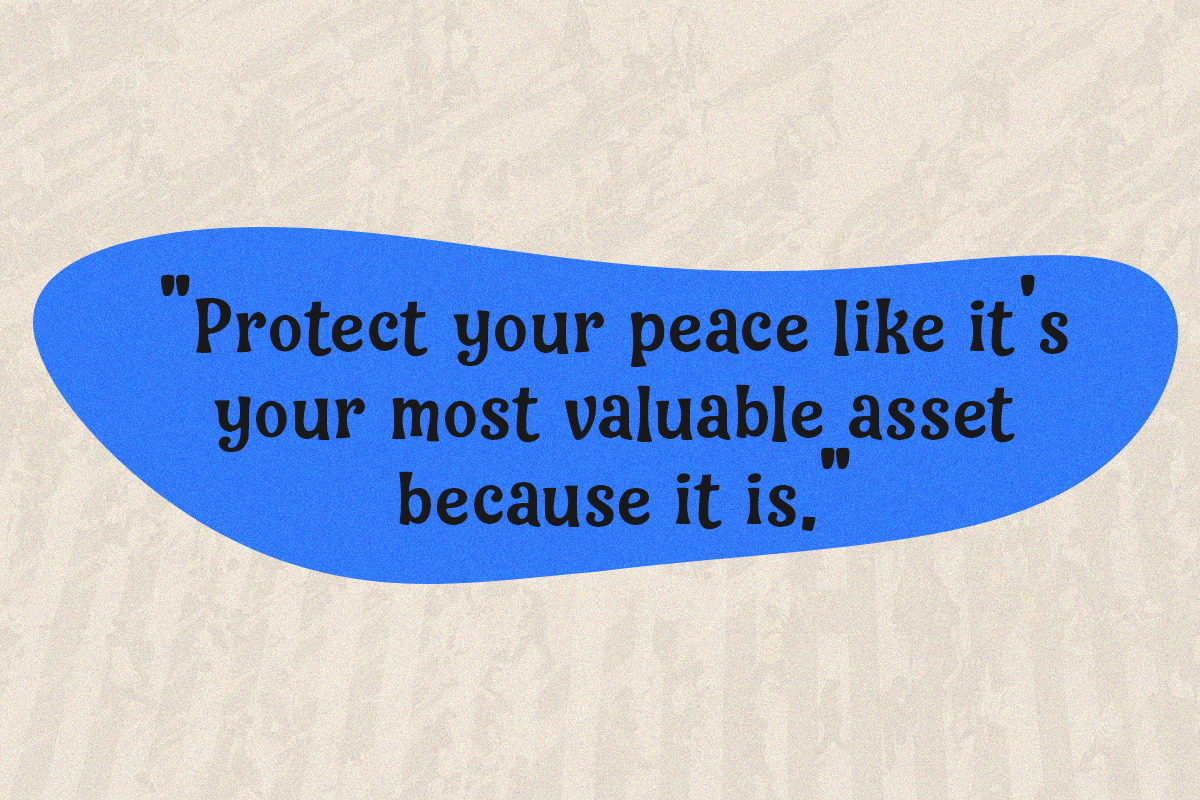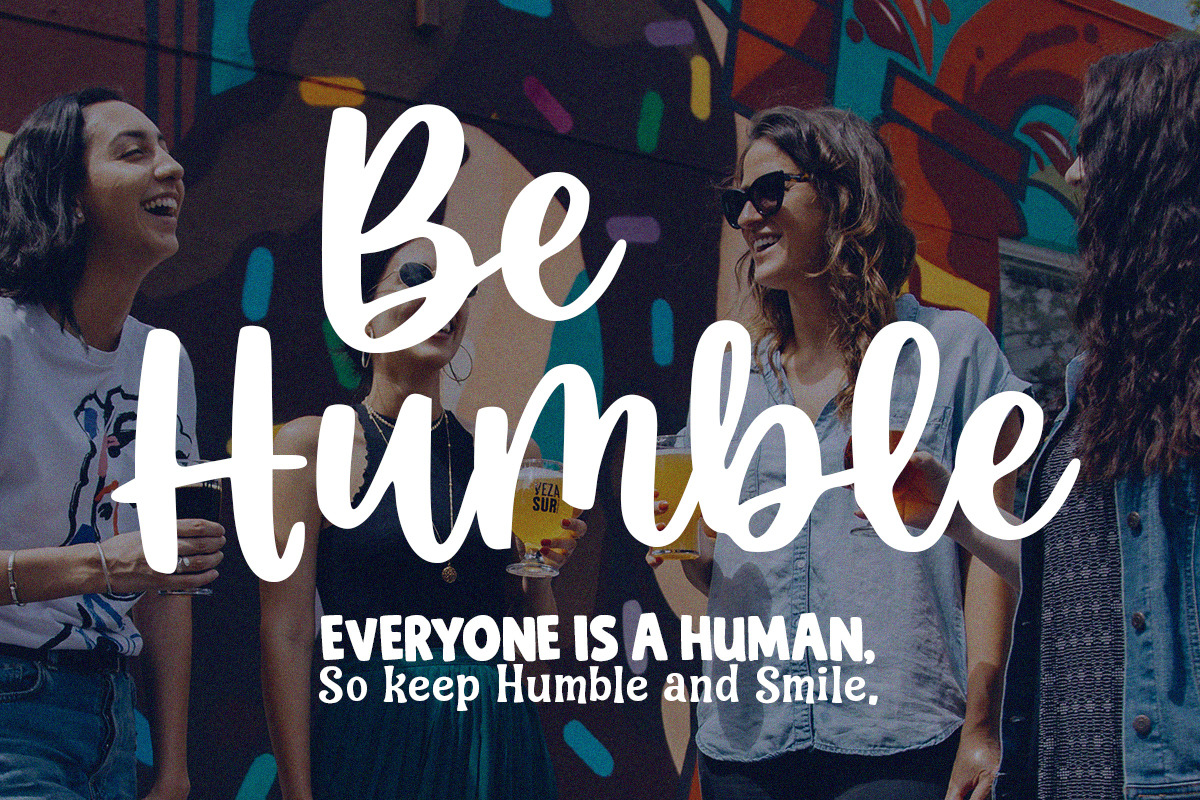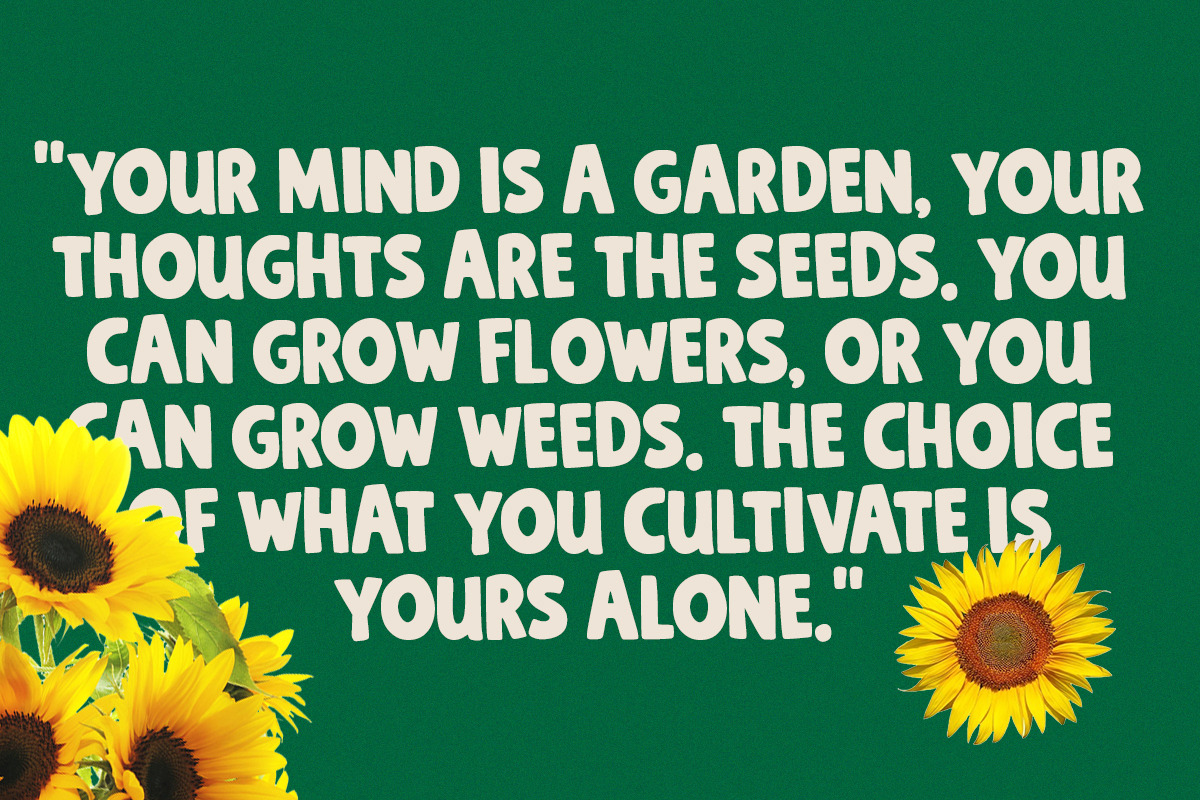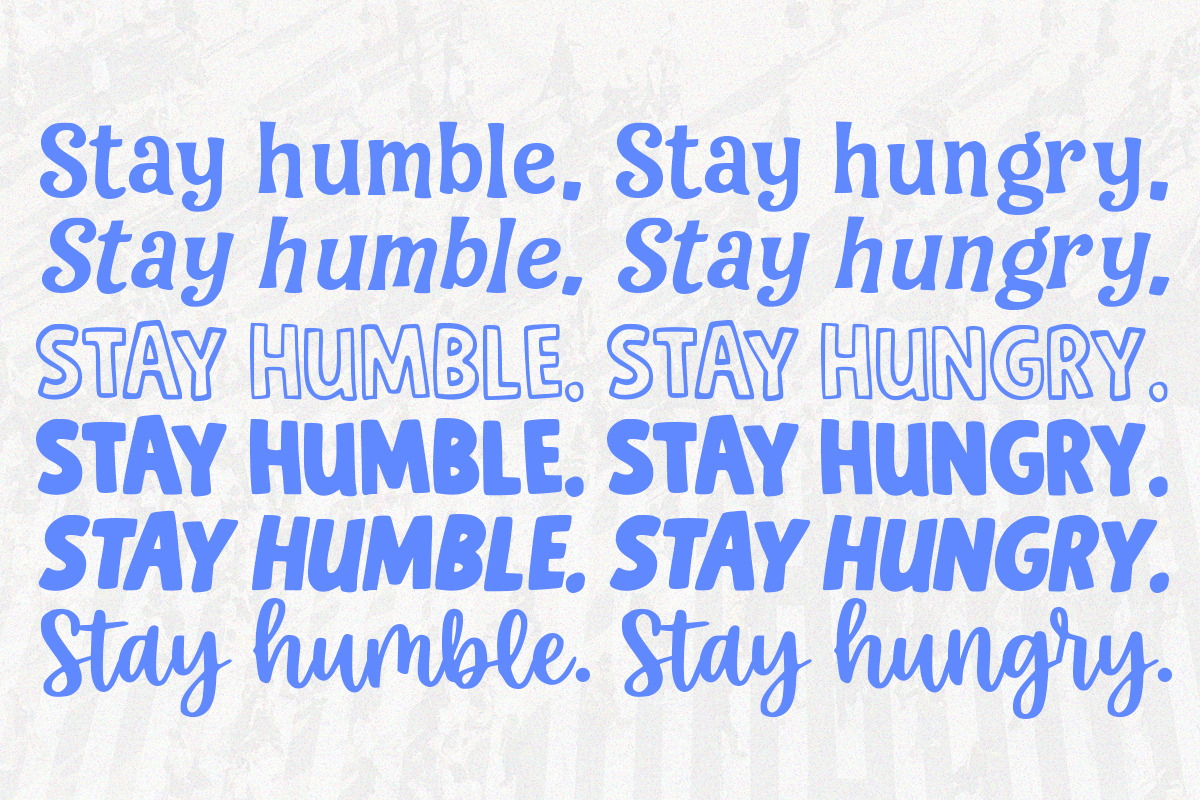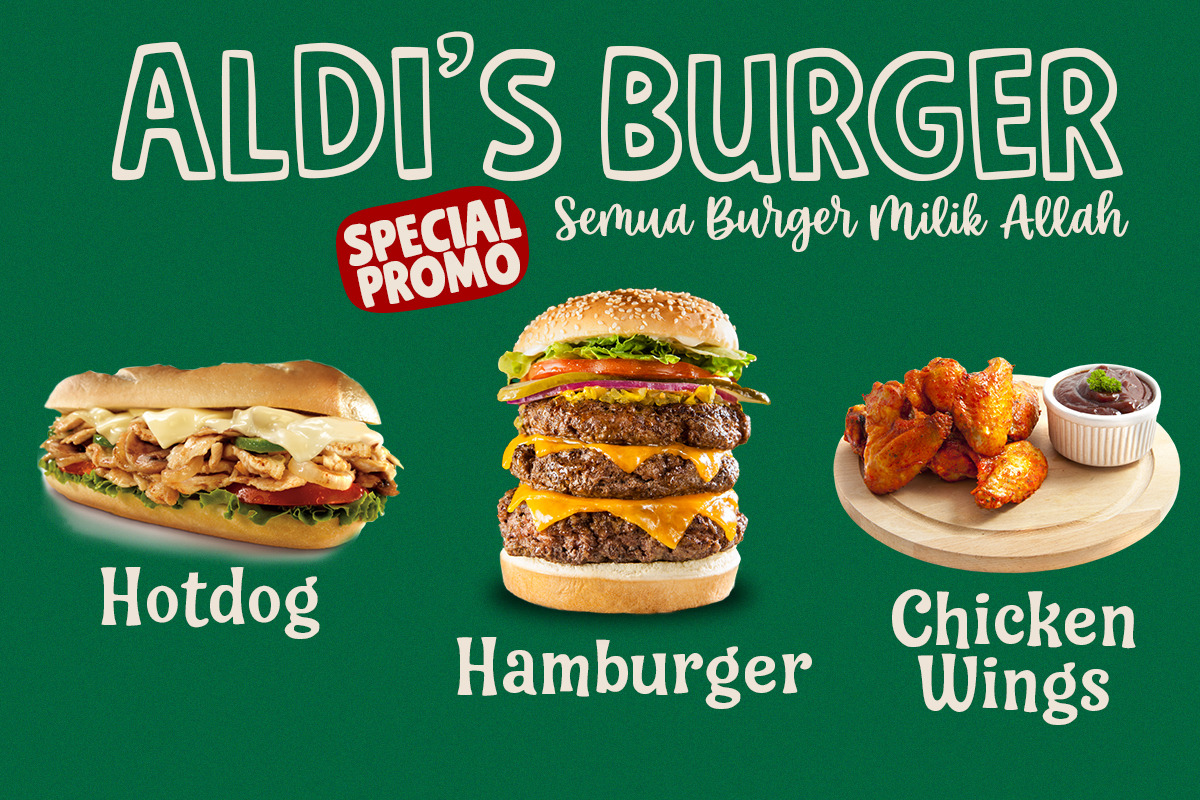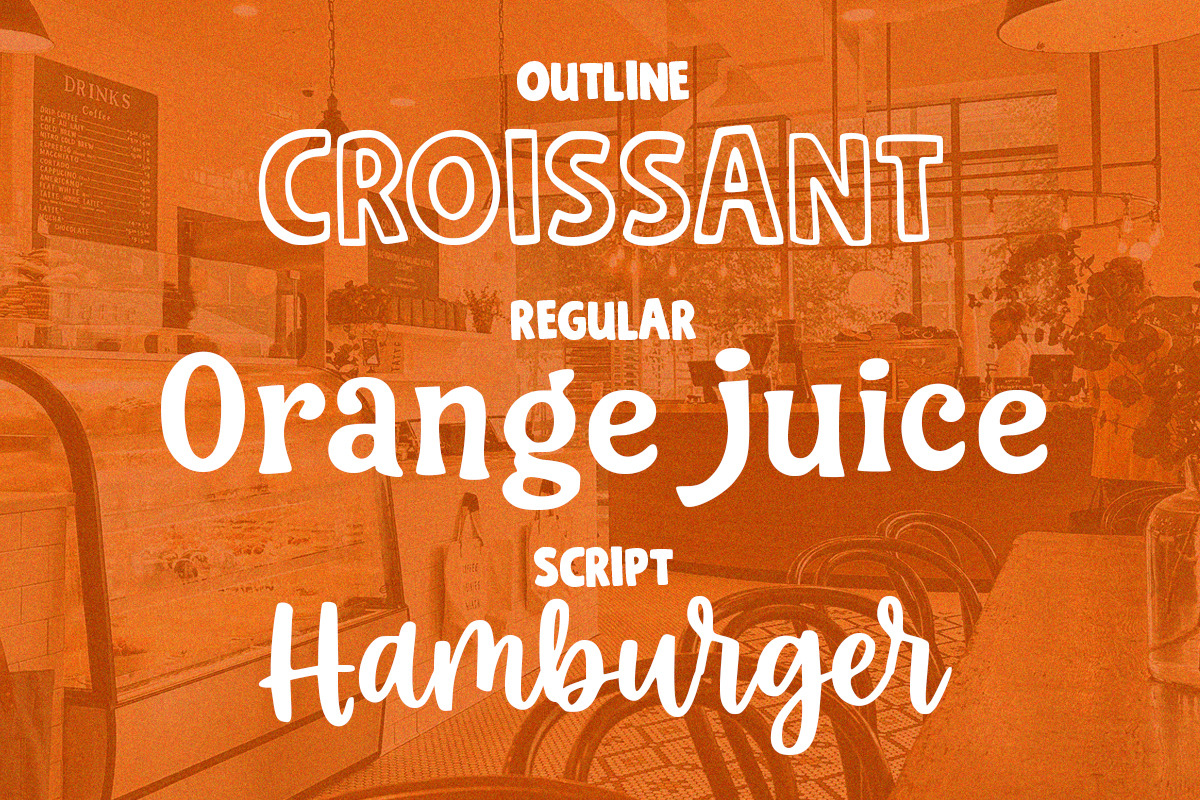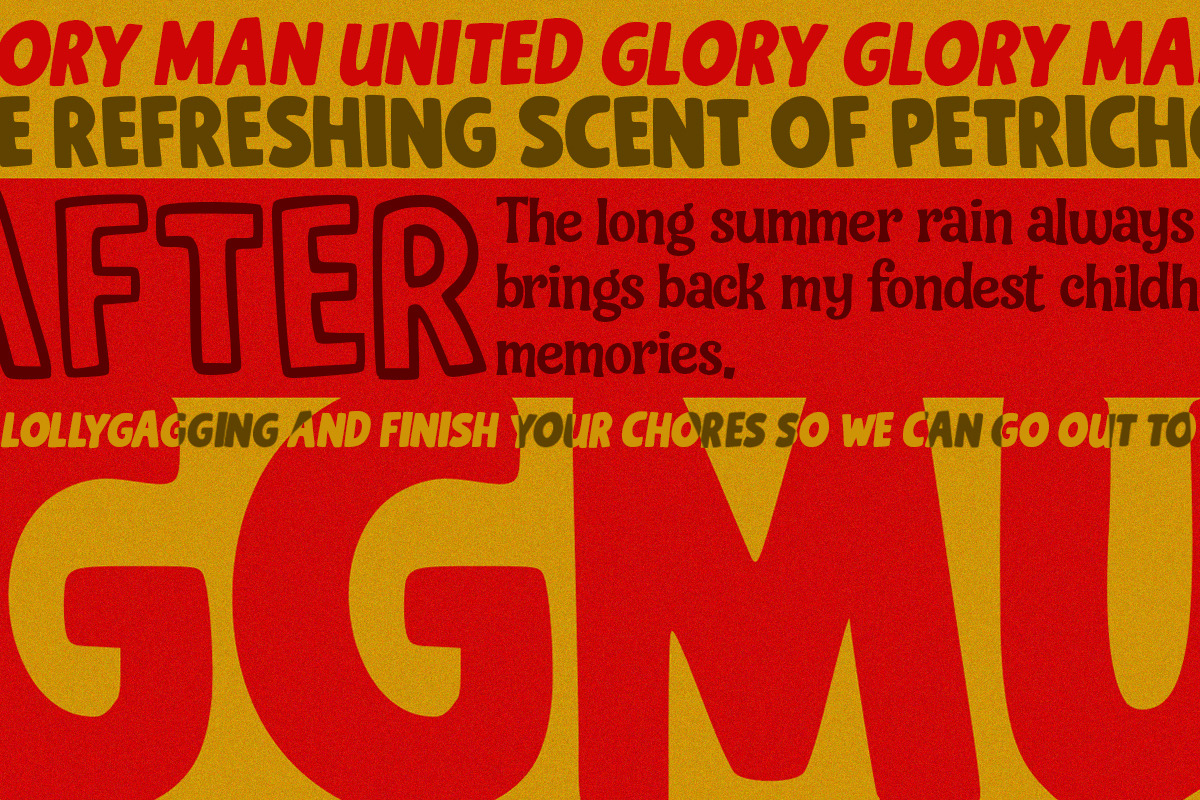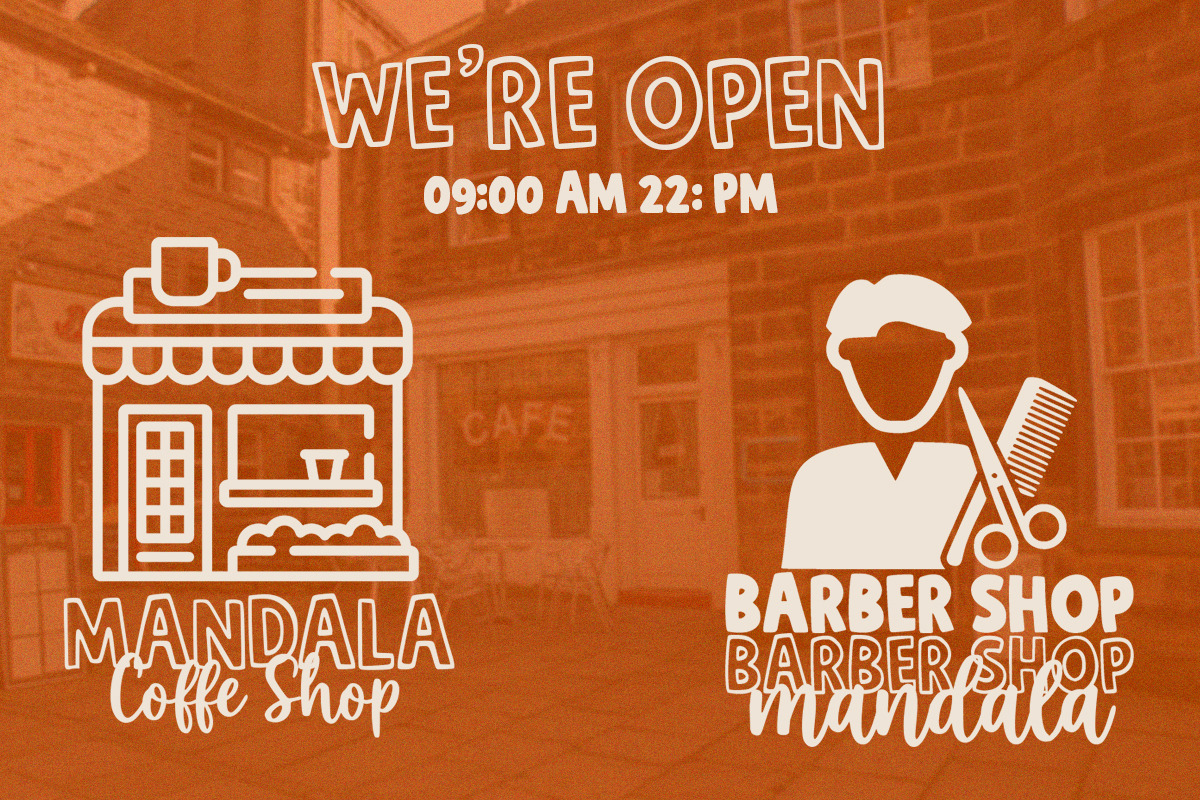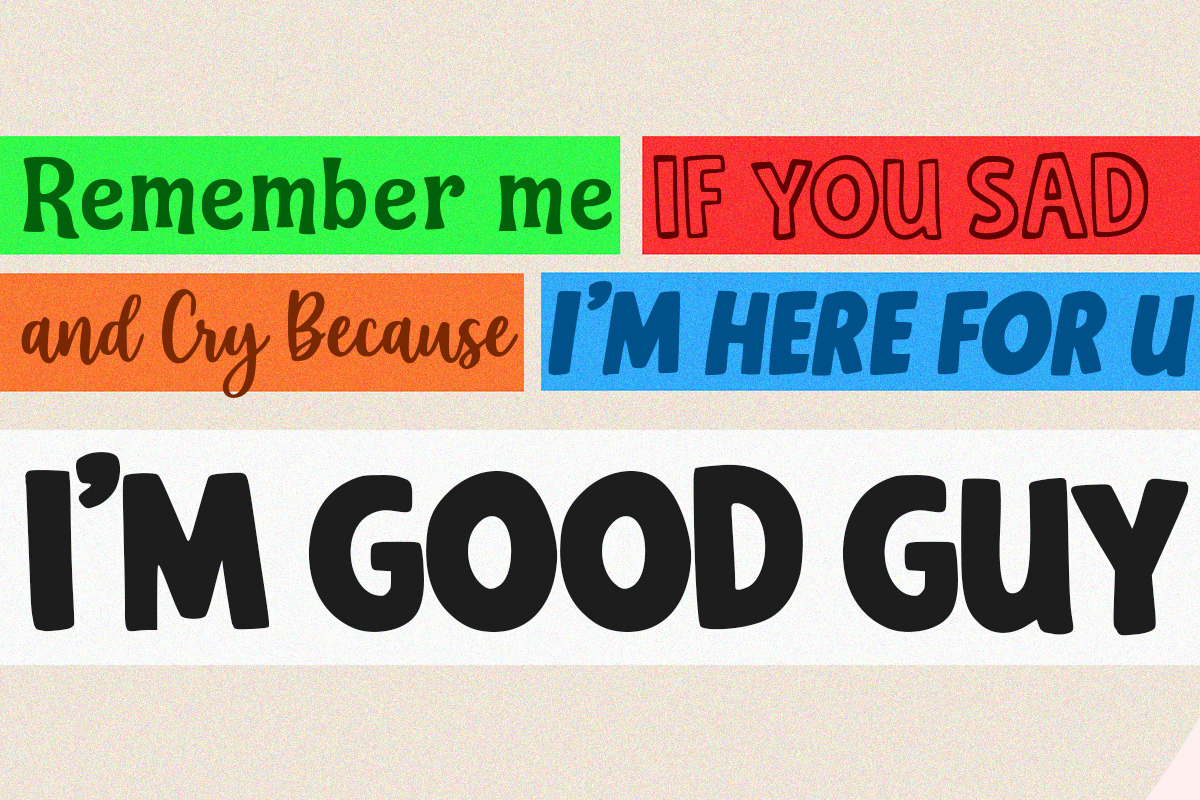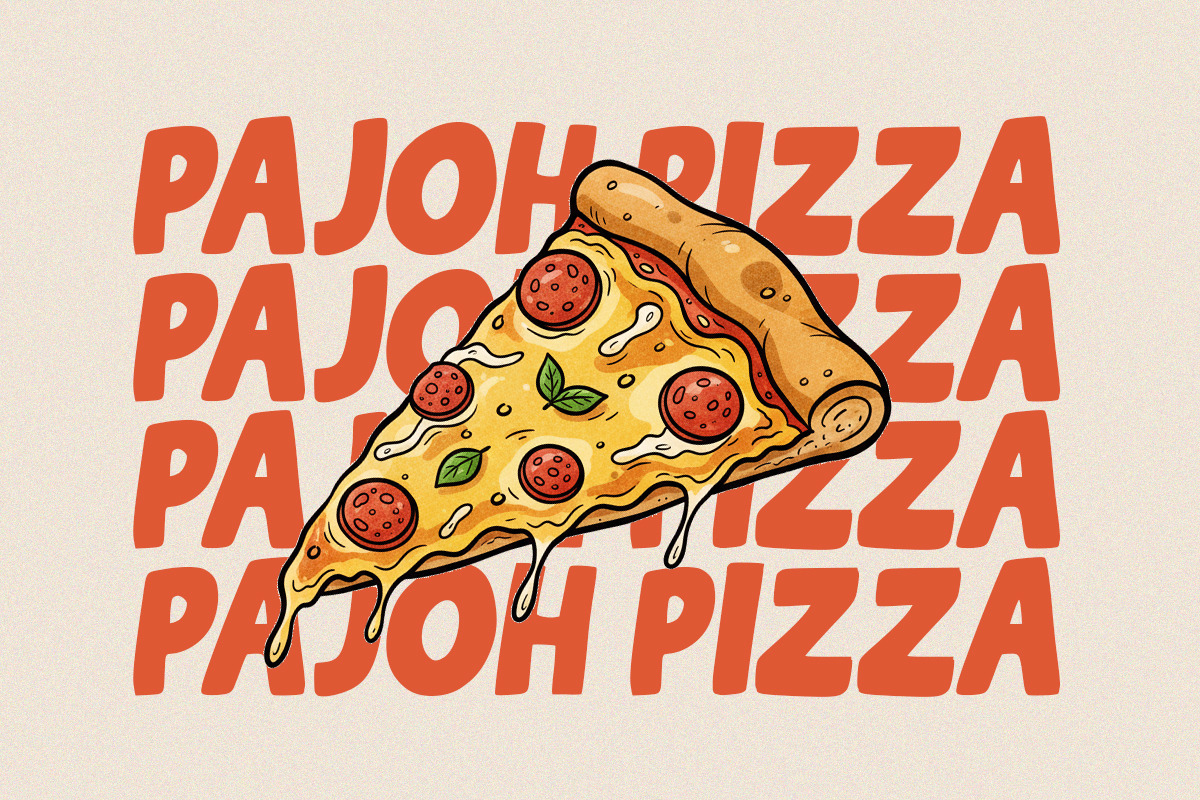
Bad Night
Bad Night is a retro-funky font family by Struggle Studio, inspired by the bold and playful aesthetics of the 70s. It features thick, expressive curves that deliver a strong vintage vibe, making it perfect for standout logos, posters, and merchandise.
Versatility: Includes 6 styles (Regular, Slant, Regular II, Script, Regular II Outline, and Regular II Slant).
Character: Bold and dynamic shapes with a friendly, nostalgic feel.
Best For: Eye-catching headlines and creative branding projects.